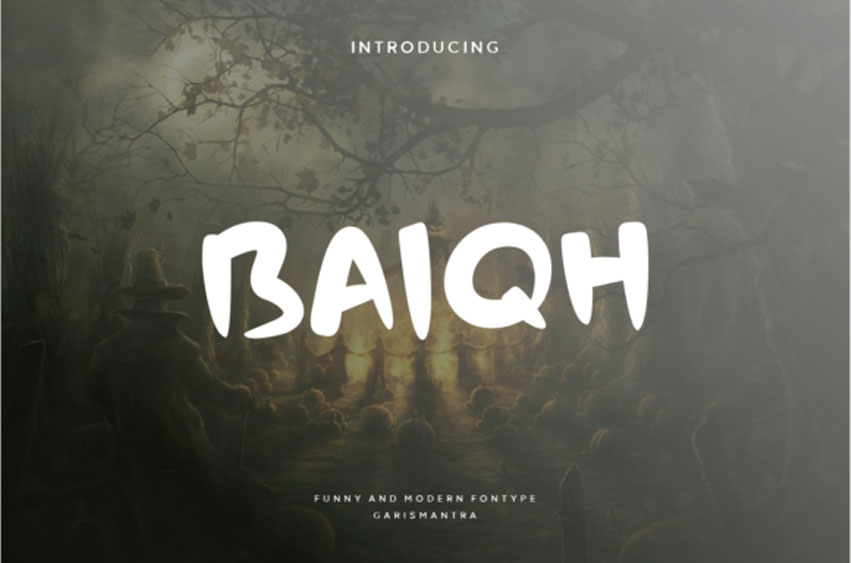
Baiqh Font
Baiqh Font is a fresh script font, which looks a bit spooky but also fun at the same time.
This font will be very suitable for all designs, from branding designs, apparel, illustrations to logo designs and more.